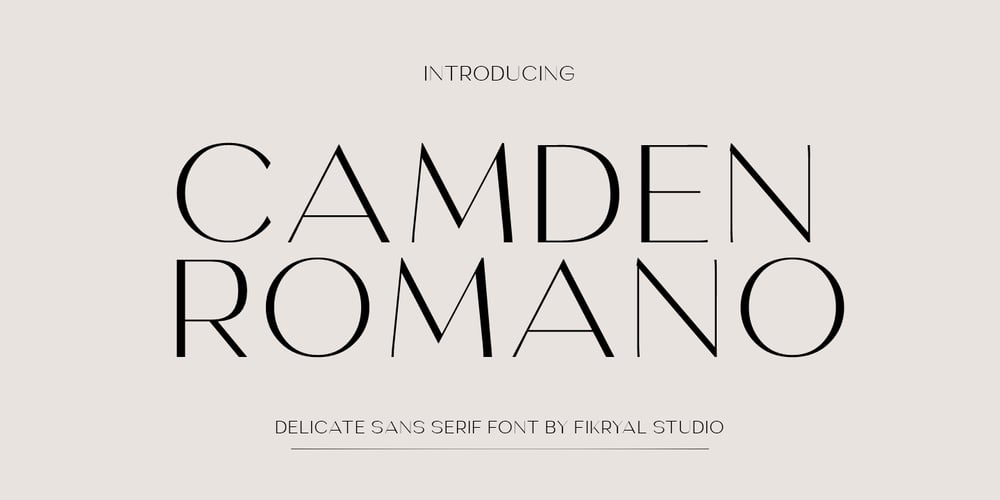
Camden Romano
Camden Romano font
Camden Romano Font Family was designed by Muhammad Fikry and published by Fikryal. Camden Romano contains 1 styles and family package options. Introducing “Camden” – a delicate sans serif font exuding elegance with its refined, all-caps design. Crafted for sophistication, its sleek letterforms bring a touch of class to any project. Camden’s minimalist aesthetic is complemented by its extensive multilingual support, ensuring versatility across various languages and typographic needs. Whether used for branding, editorial design, or digital media, Camden elevates your typography with its timeless charm and international appeal.If you have any questions please don’t hesitate to contact meFollow my Instagram: @fkryall